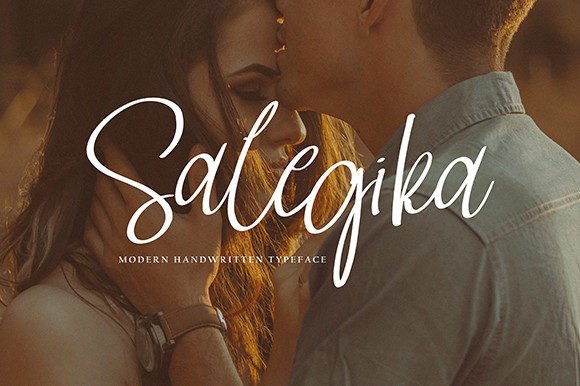
Welcome to the world of Salegika Font, a script font family that exudes elegance and charm, designed by the creative duo Pineungtype and Missinklab. With its flowing lines and delicate curves, Salegika invites you to dive into an ocean of visual beauty.
Delve into the world of Salegika, a magical font that captivates hearts with its charm and elegance. Designed to create enchanting scripts, it lends a touch of sophistication and uniqueness to your creative endeavors. With each letter meticulously crafted, Salegika promises to transport you to a universe where words dance in harmony.
Picture your words taking center stage, adorned with the grace and beauty of Salegika. Wedding invitations, thank you cards, quotes, and greeting cards transform into masterpieces that resonate with timeless beauty. Logos and business cards become emblems of distinction, leaving a lasting impression on clients and colleagues alike. Every design adorned with Salegika's touch exudes a handwritten charm that captivates and inspires.
Allow Salegika to be your artistic guide, leading you through a symphony of creativity. Create invitations that evoke emotions, thank you cards that radiate gratitude, and logos that exude confidence and style. Let your imagination soar as you explore the endless possibilities that Salegika offers, transforming ordinary text into breathtaking visual poetry.
In the realm of filmmaking, Salegika emerges as a veritable star. Its inherent elegance and charisma make it the ideal choice for captivating titles and credits. Imagine your film scripts adorned with Salegika's enchanting grace, drawing viewers into the heart of your cinematic masterpiece. With every frame, Salegika's allure weaves a spell, leaving audiences mesmerized by the harmony of words and visuals.
Salegika is not just a font; it is an artistic tool that empowers you to bring your creative visions to life. Its versatility knows no bounds, gracing everything from personal projects to professional endeavors. Let Salegika be the secret ingredient that elevates your designs and leaves a lasting impression.
Embrace the allure of Salegika, the font that dances on the page, captivating hearts and minds. Its delicate charm and undeniable elegance will leave you spellbound, inspiring you to create designs that resonate with timeless beauty. Step into the world of Salegika and let your creativity flourish.